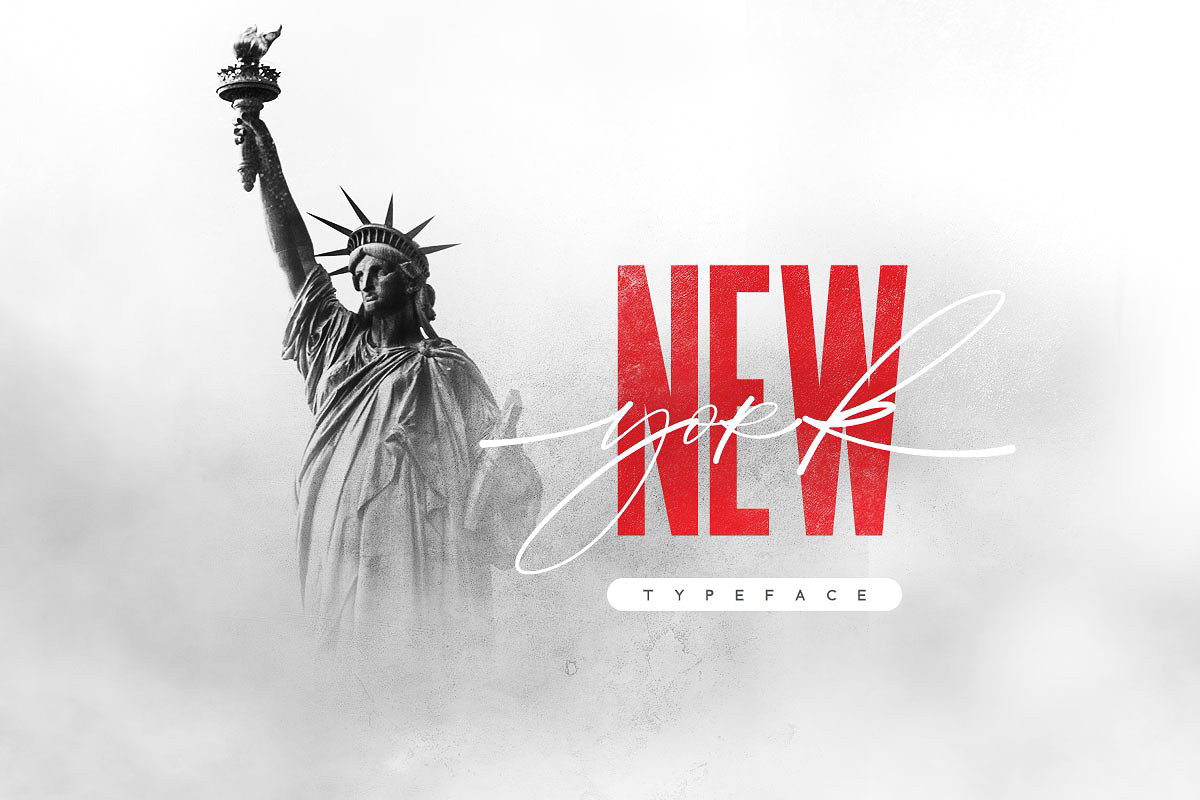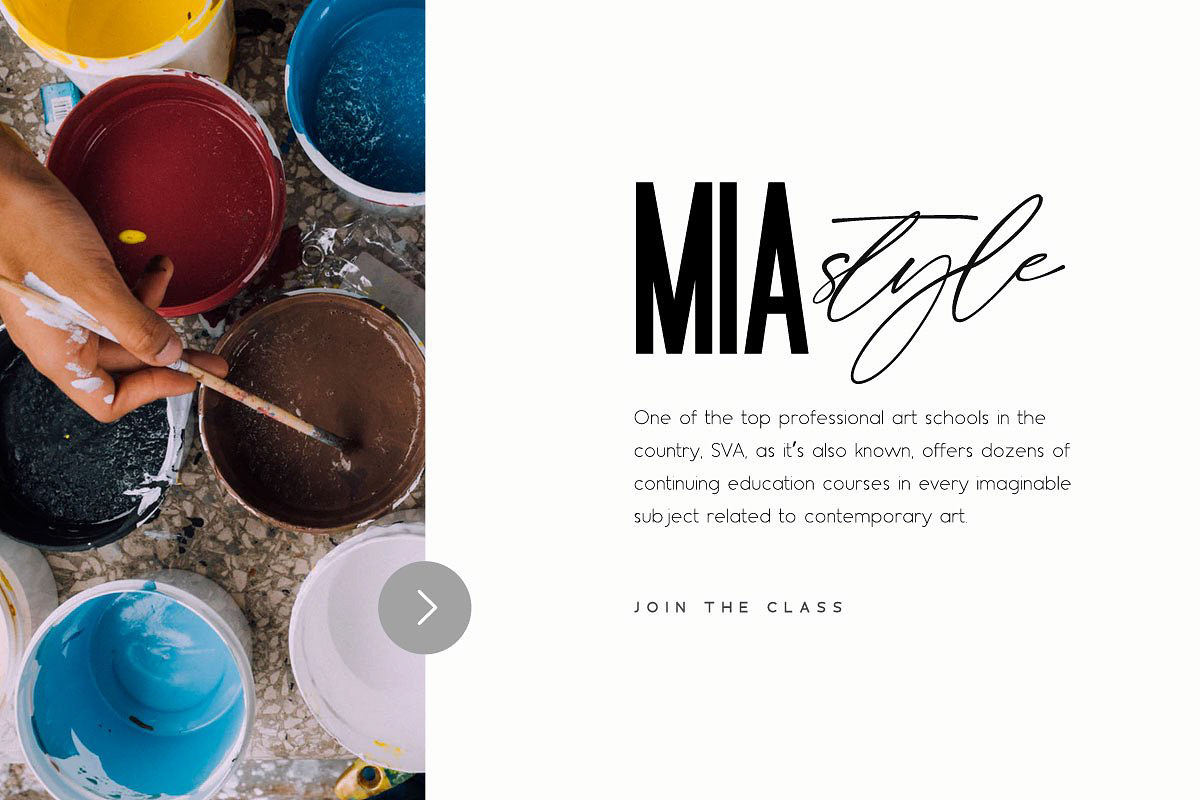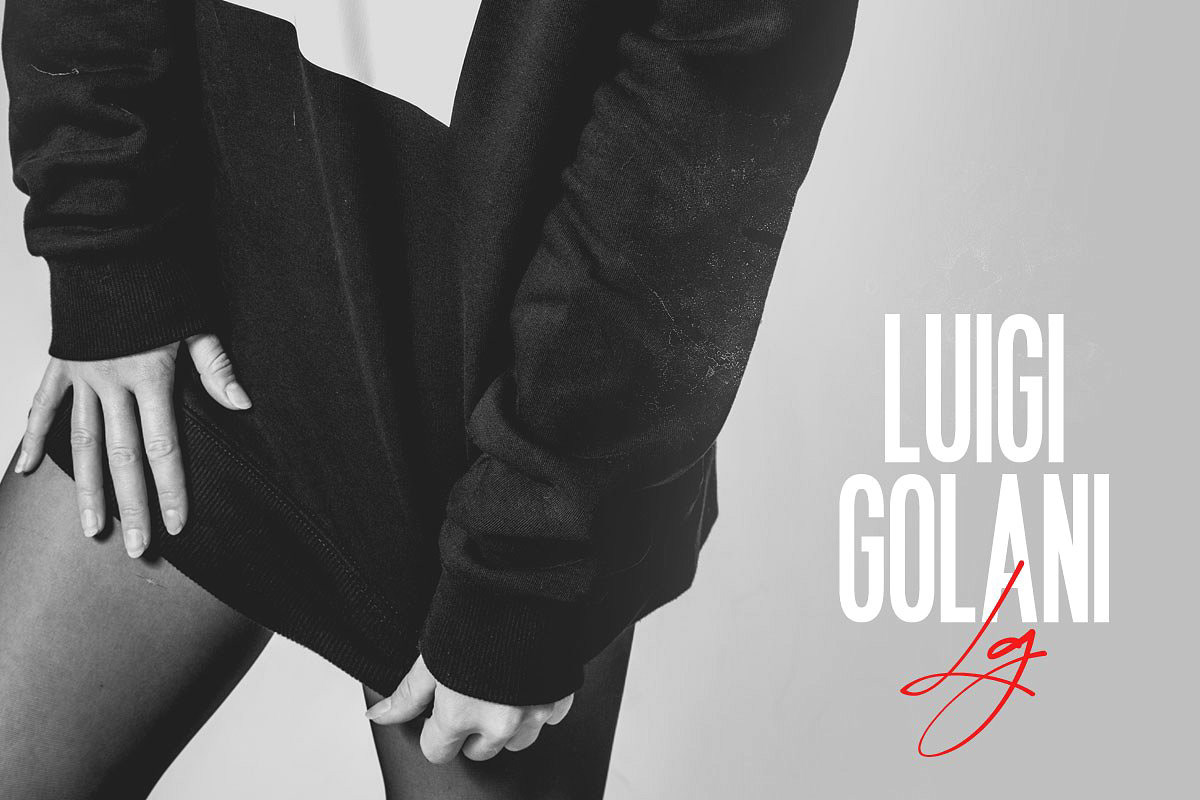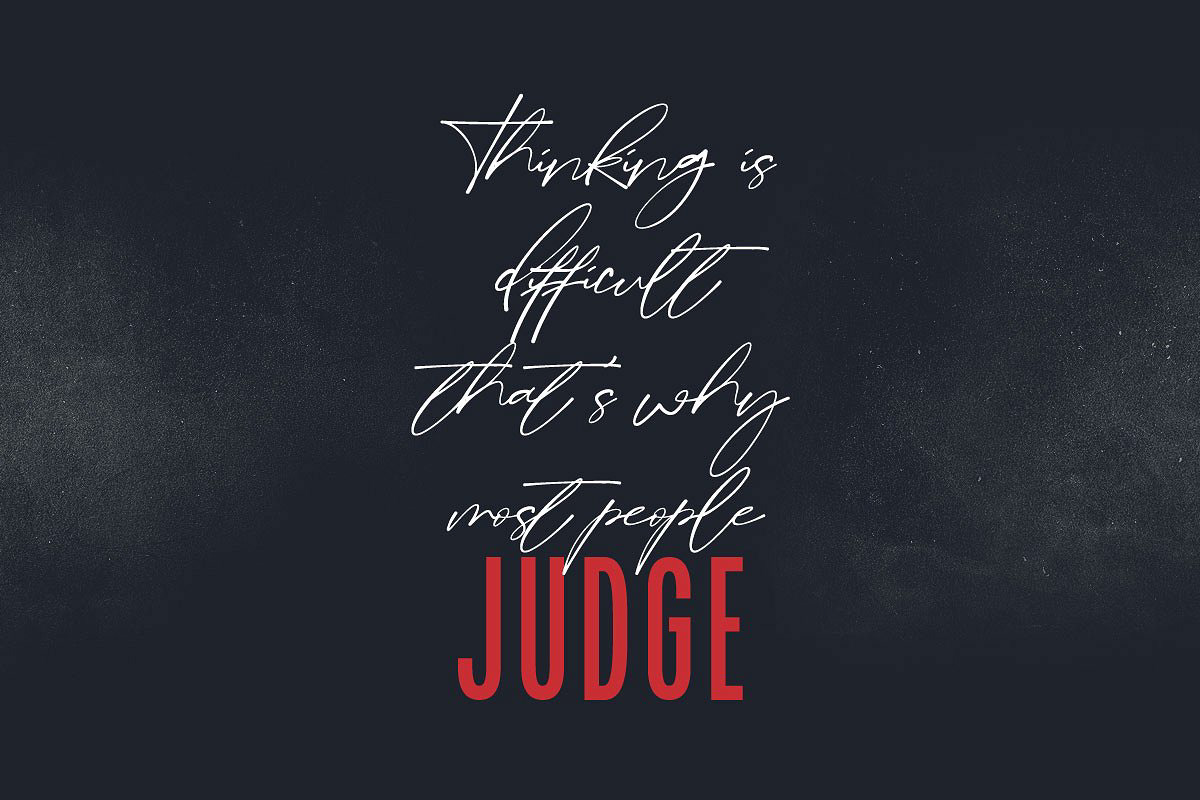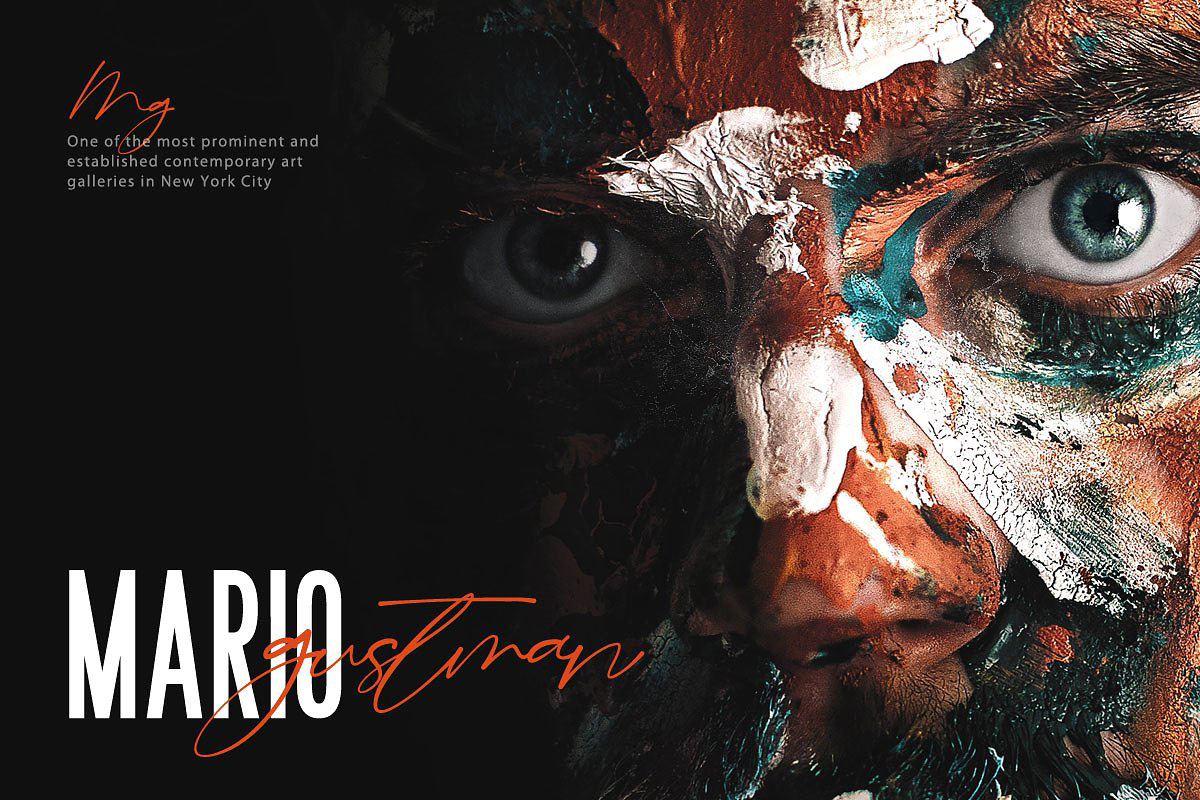
York font with signature style and New font come with bold sans serif style. Both fonts complete each other and works perfect together, make your text looks beautiful. With modern script style this font will perfect for many different project ex: Instagram post, signature logo, watermark, quote, blog header, poster, wedding, branding, logo, fashion, apparel, letter, invitation, stationery, etc.